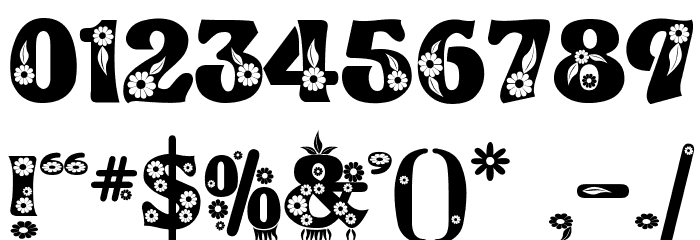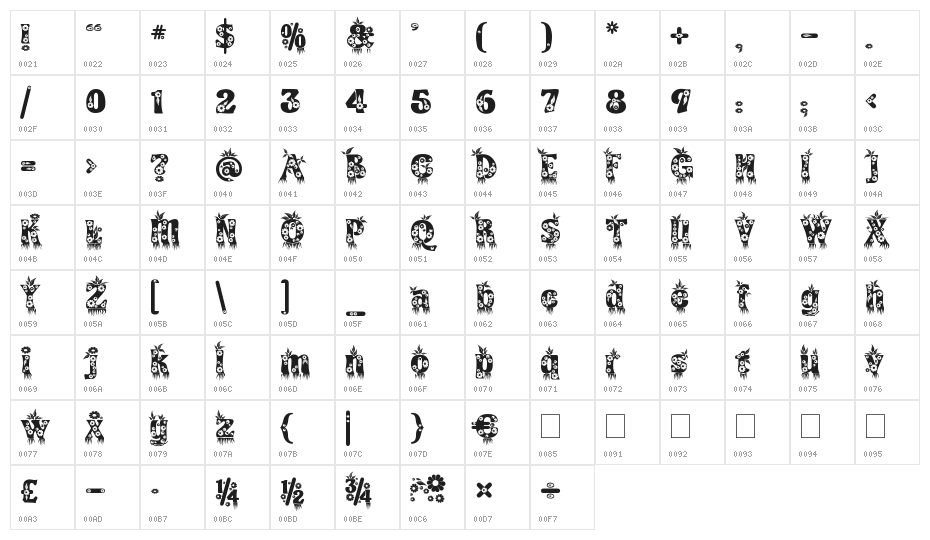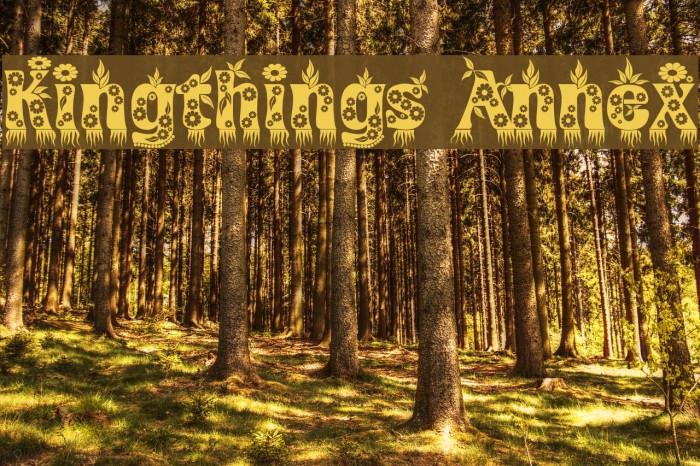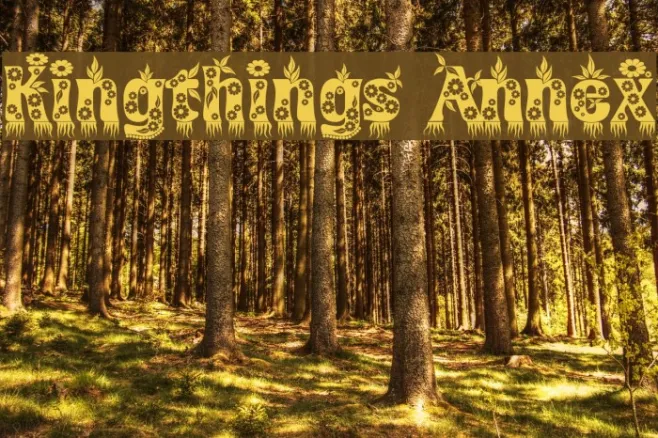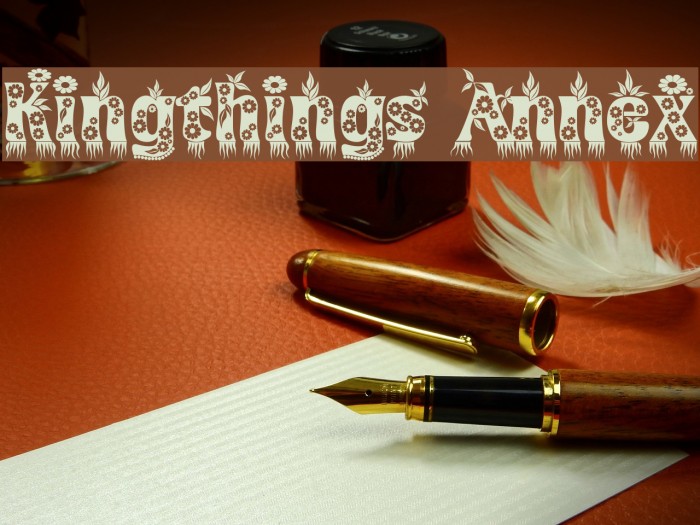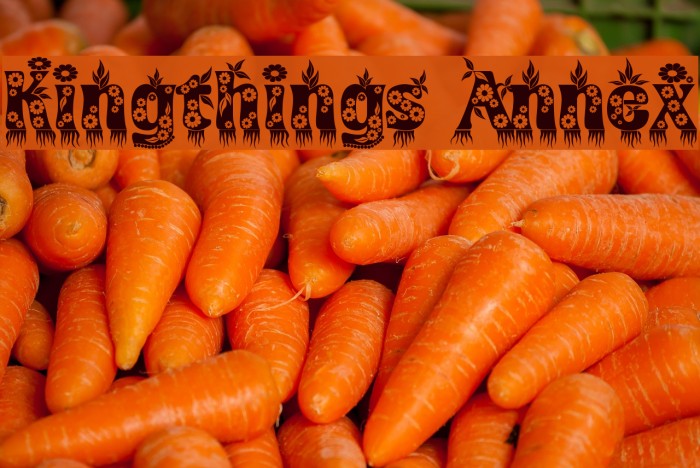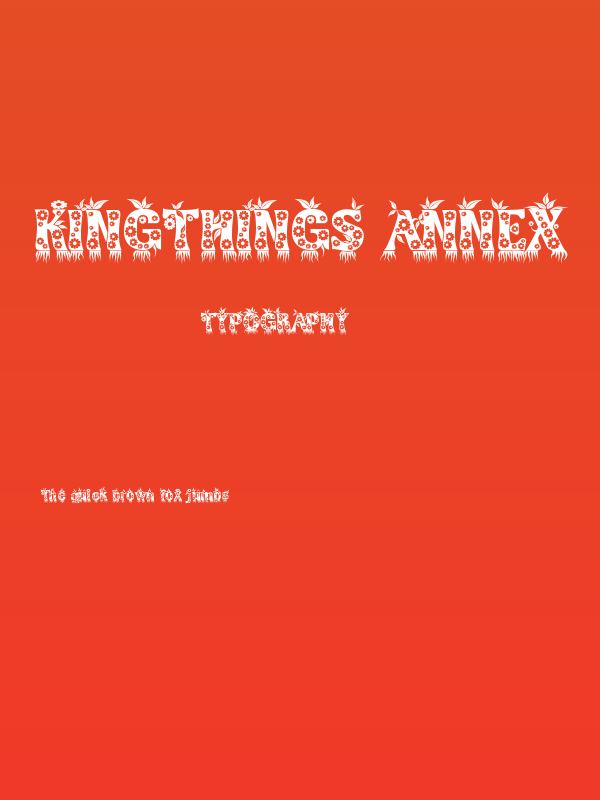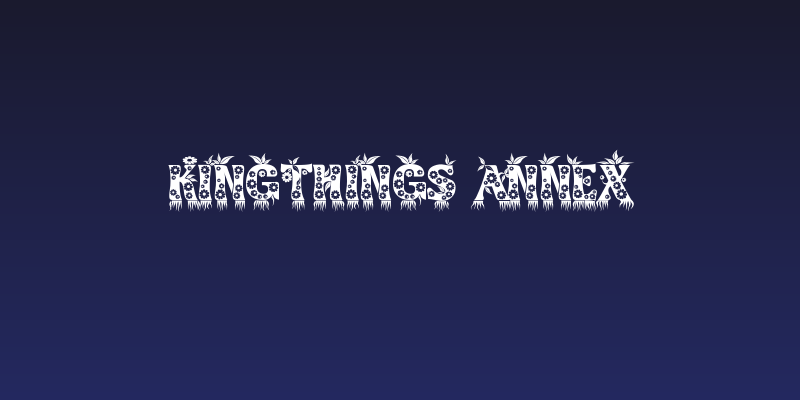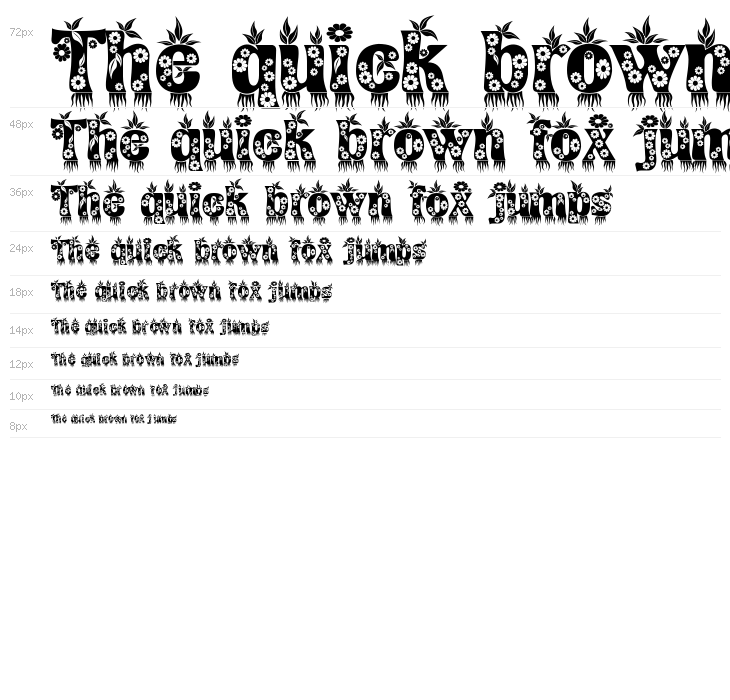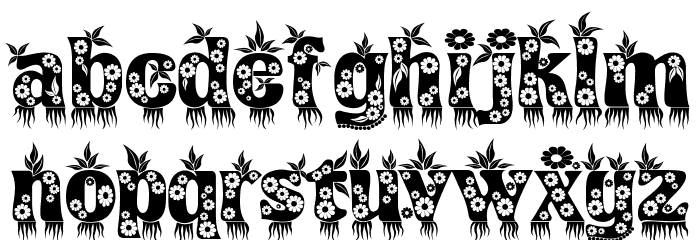
Kingthings Annex Font
Kingthings Annex Description
This font is a whimsical and decorative typeface that features a playful integration of floral elements within each character. The letters are bold and filled with intricate flower patterns, giving them a lively and organic appearance. The uppercase and lowercase letters maintain a consistent style, with additional embellishments like leaves and roots extending from the characters, enhancing the natural theme. The numbers and special characters also follow this floral motif, making the font cohesive and visually engaging. Its unique design makes it ideal for projects that require a touch of nature and creativity.
| Proposed Projects | Ideal for greeting cards, children's book covers, eco-friendly brand logos, and garden-themed event invitations. |